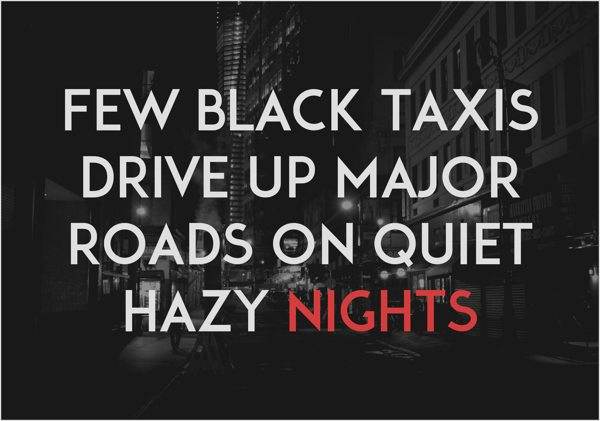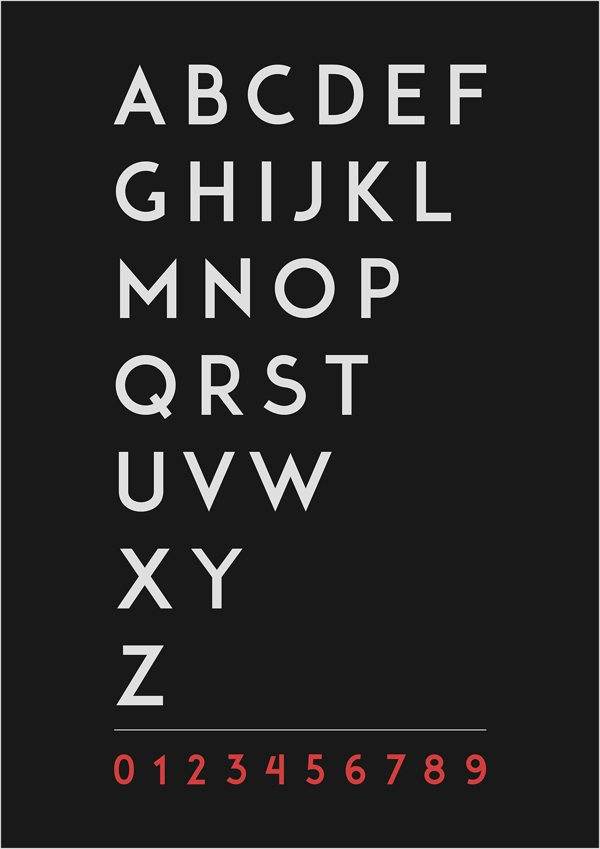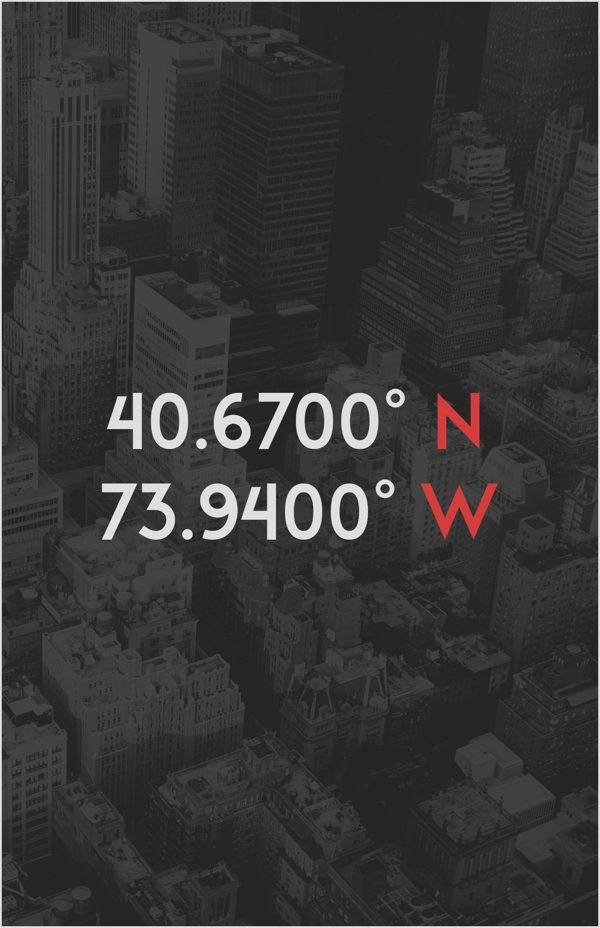
Free Font Of The Day #8 – Adam Font
The Adam Font comes from Shrenik Ganatra is an All Caps, Sans-Serif typeface inspired by Futura. The sharp, clean appearance makes it a suitable typeface for headlines, posters, titles and captions. It consists of 227 glyphs and is free for both personal and commercial use.